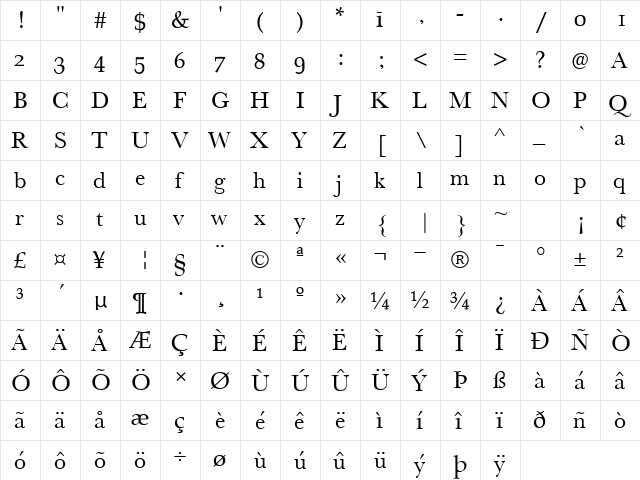
Athena Roman
Design Context for Athena Typeface
Athena takes a measured approach to typography — its balanced proportions and neutral character make it a reliable workhorse for both digital and print work.